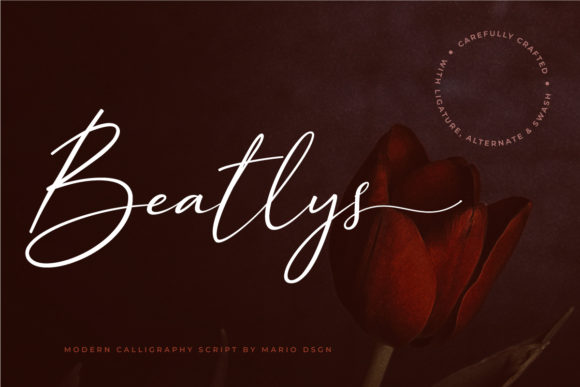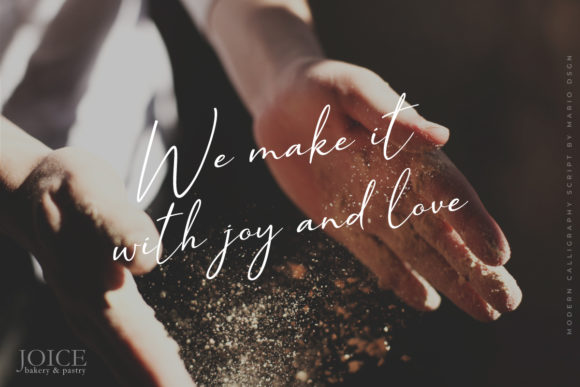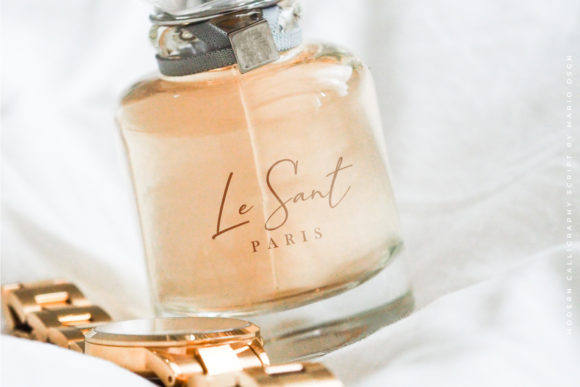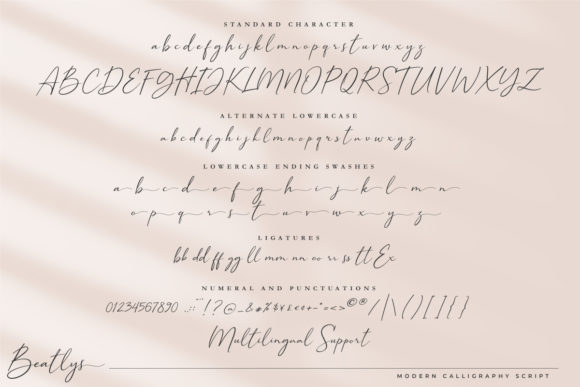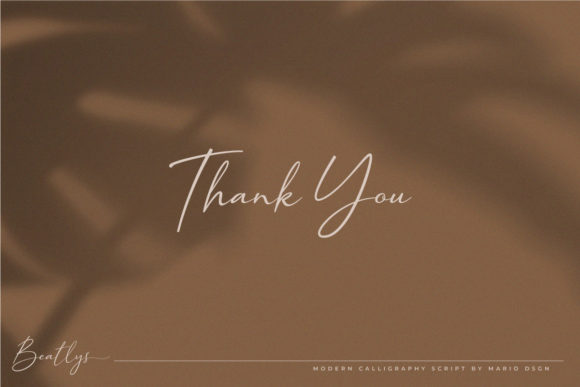
About Beatlys Font
Beatlys is a modern calligraphy script font that has a clean, thin, and smooth vibe.
Beatlys is perfect for logo and branding projects, wedding invitation designs, photography, fashion, advertisements, product label and packaging, watermark, and other projects that need a handwritten and signature style.